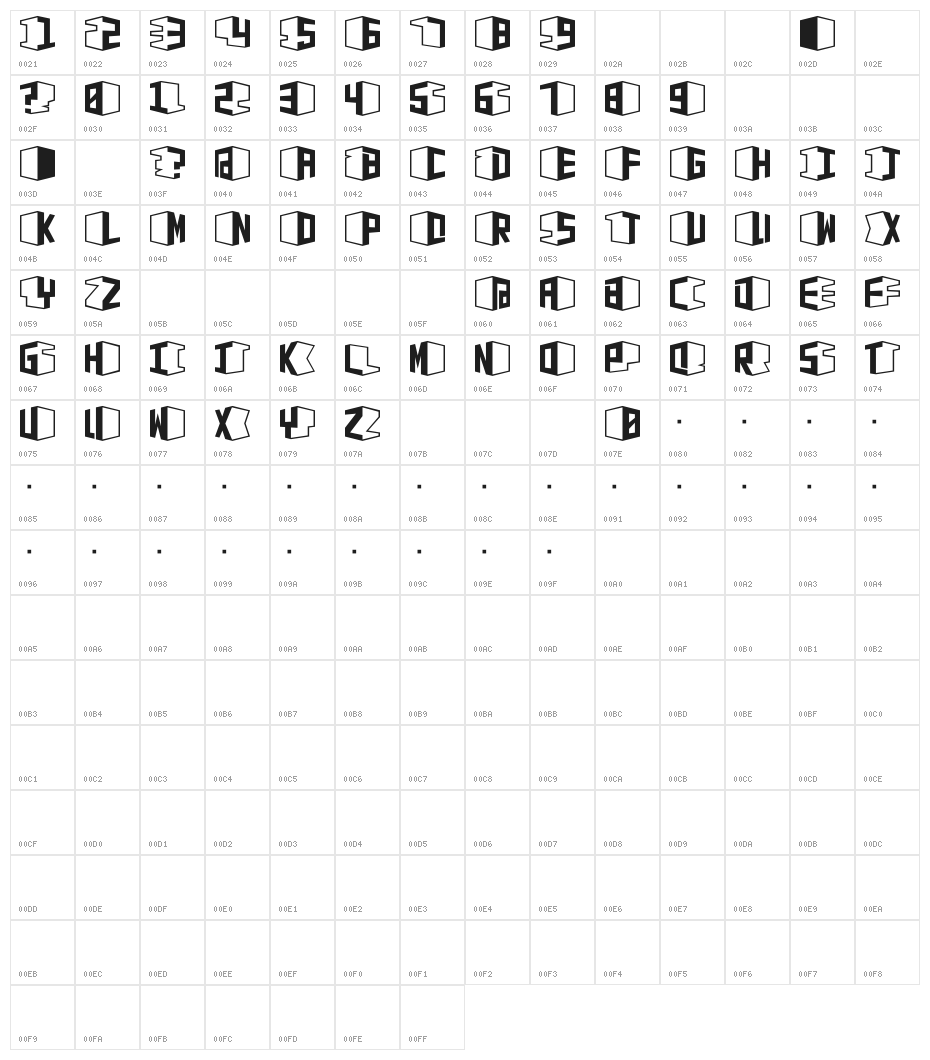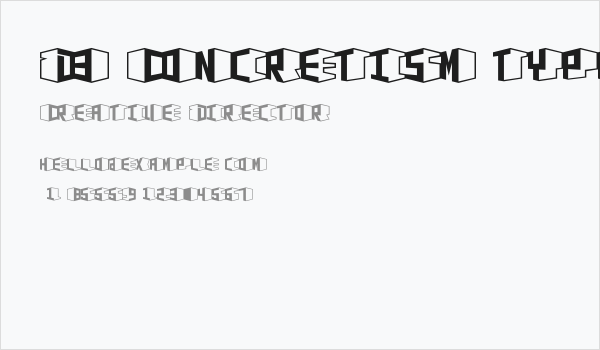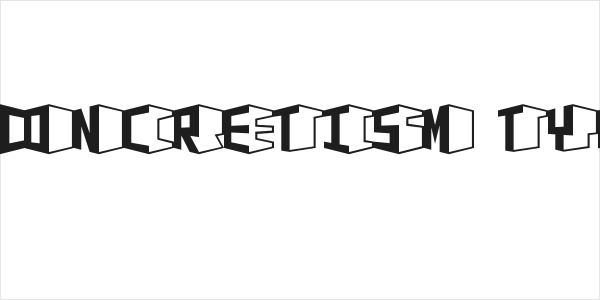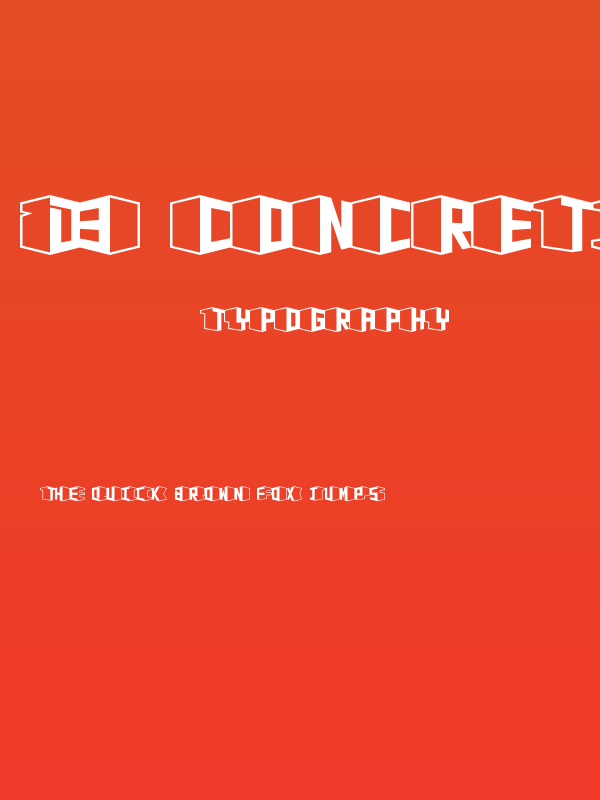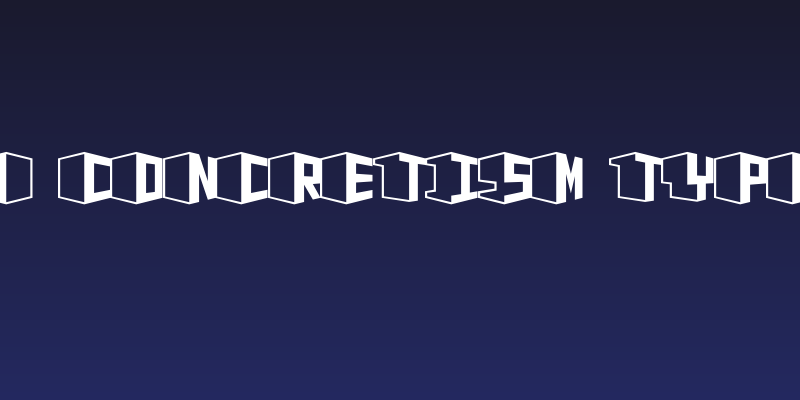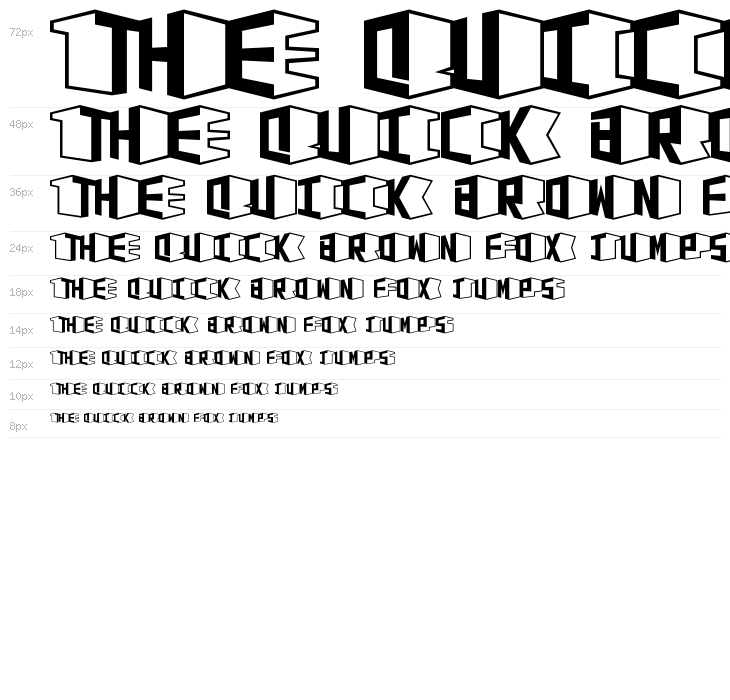
D3 Concretism typeB Font
D3 Concretism typeB Description
This font features a bold, three-dimensional design that gives each character a blocky, geometric appearance. The letters are constructed with thick lines and sharp angles, creating a sense of depth and solidity. The style is reminiscent of architectural forms, with a modern and industrial feel. The uppercase and lowercase letters maintain a consistent structure, while the numbers and special characters follow the same design principles, ensuring uniformity across the typeface. This font's unique style makes it stand out, making it suitable for eye-catching designs.
| Proposed Projects | Ideal for posters, logos, branding, and any design requiring a strong visual impact. |